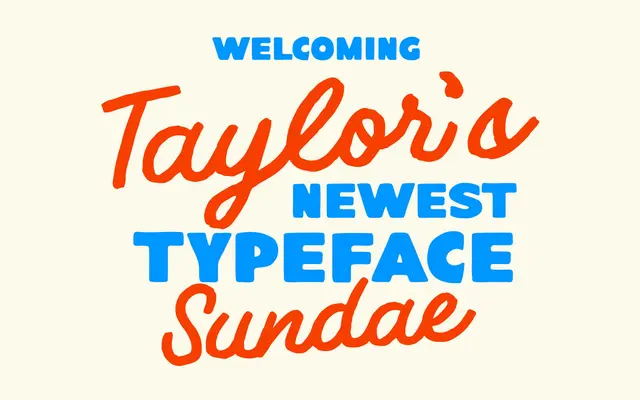
Sundae specimen from Taylor Penton
A vintage sign painter script with strong display personality, sold as a single commercial weight at a flat rate.
Designed in the sign painter tradition, it carries the irregularity and warmth of hand-lettered display work without leaning too far into formal calligraphy. The single Regular weight ships as OTF, WOFF and WOFF2 with 205 glyphs covering Western European Latin including Icelandic and Welsh. The flat-fee licensing covers logos, packaging, websites and broadcast for individuals and small teams without seat or traffic restrictions.
A vintage-inspired hand-lettered script in the sign painter tradition, with upright or slightly slanted letterforms typical of painted display lettering rather than formal calligraphic scripts.